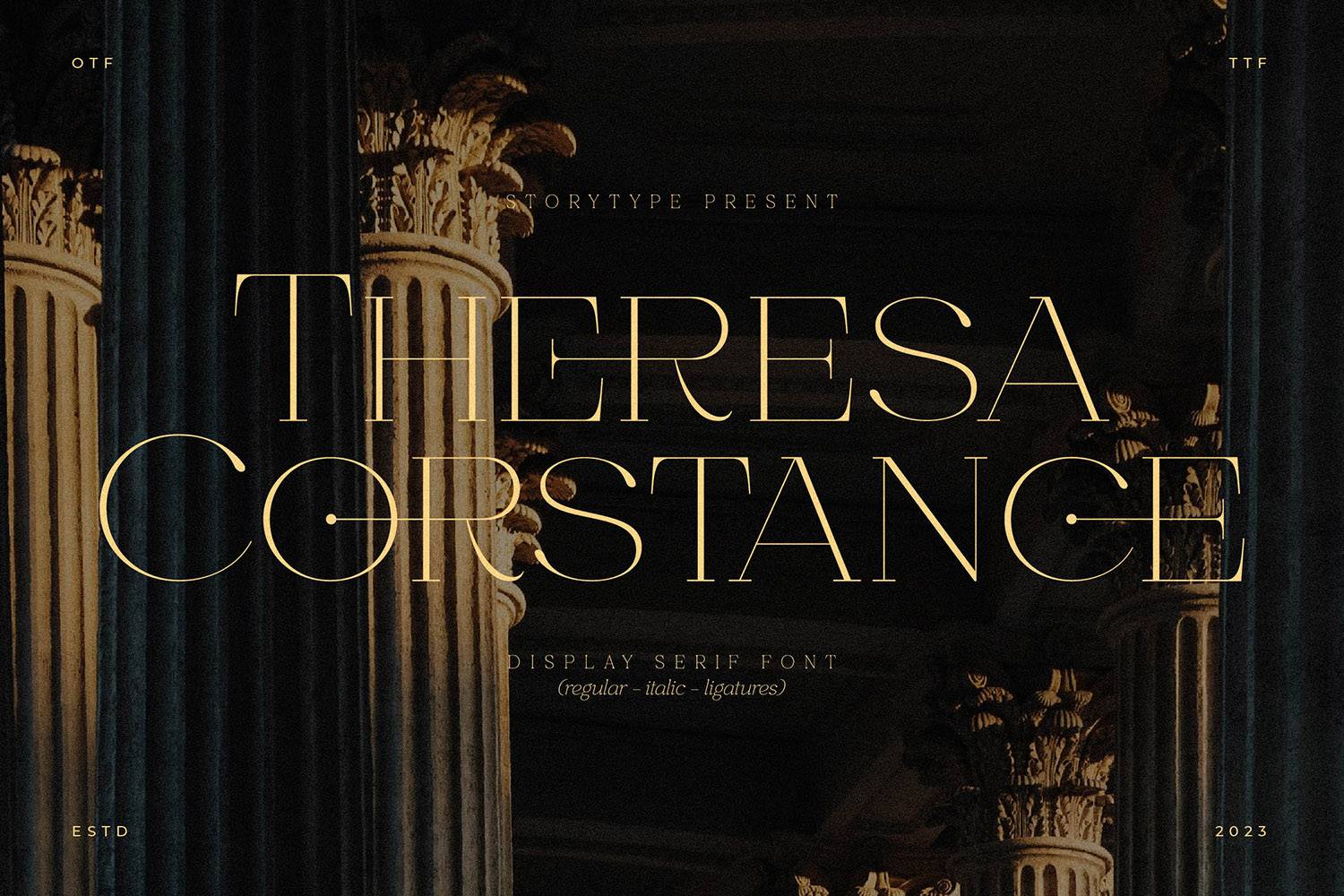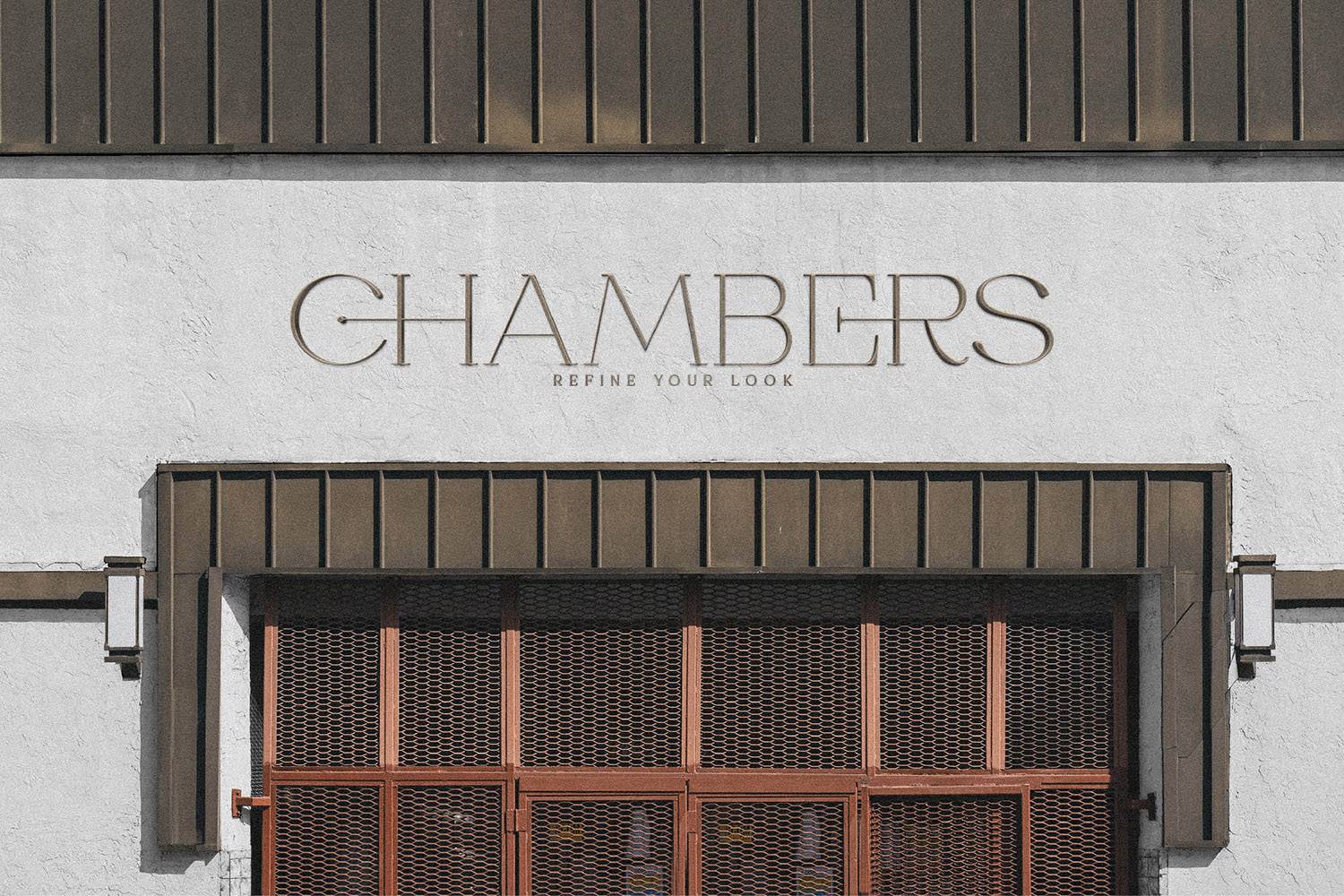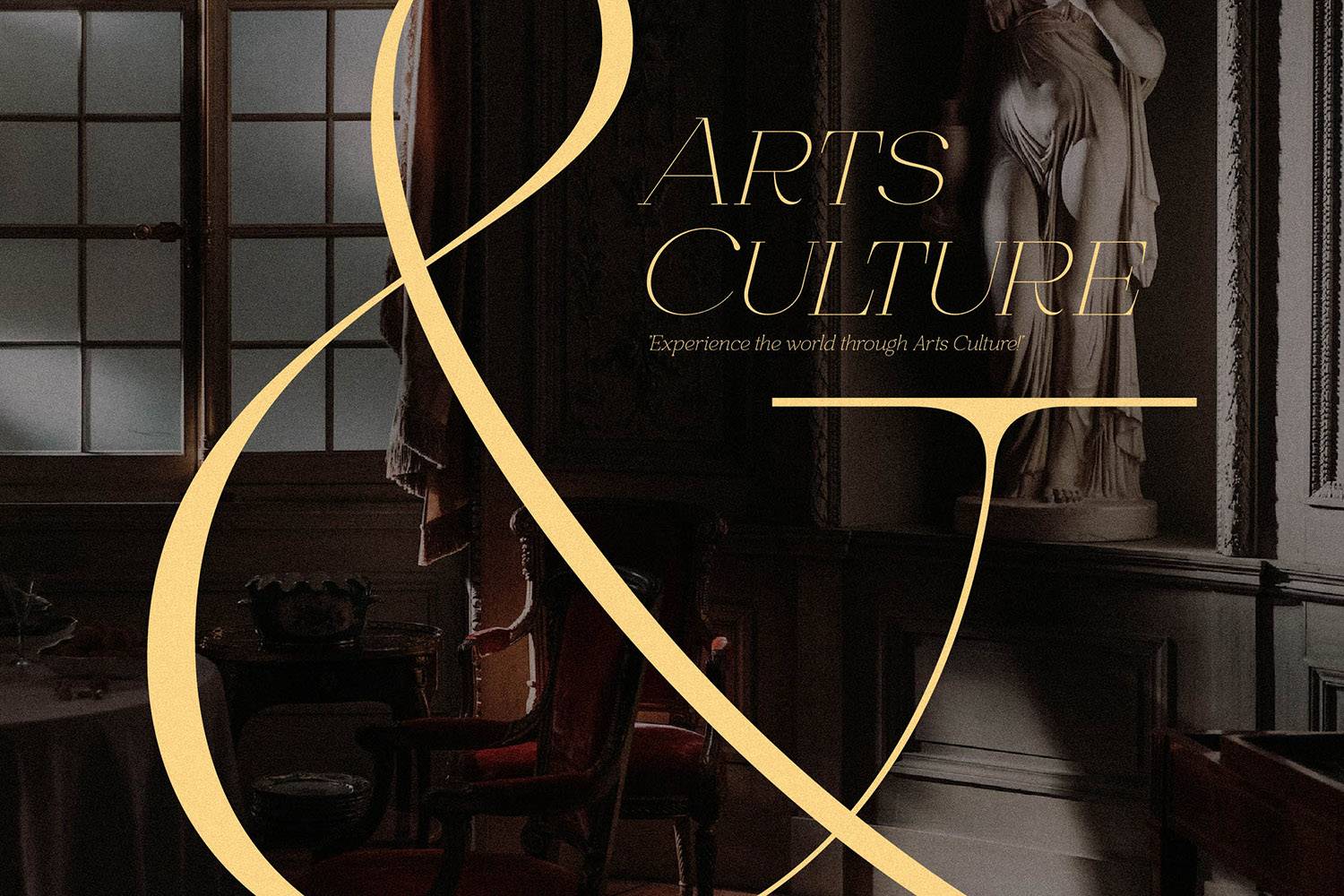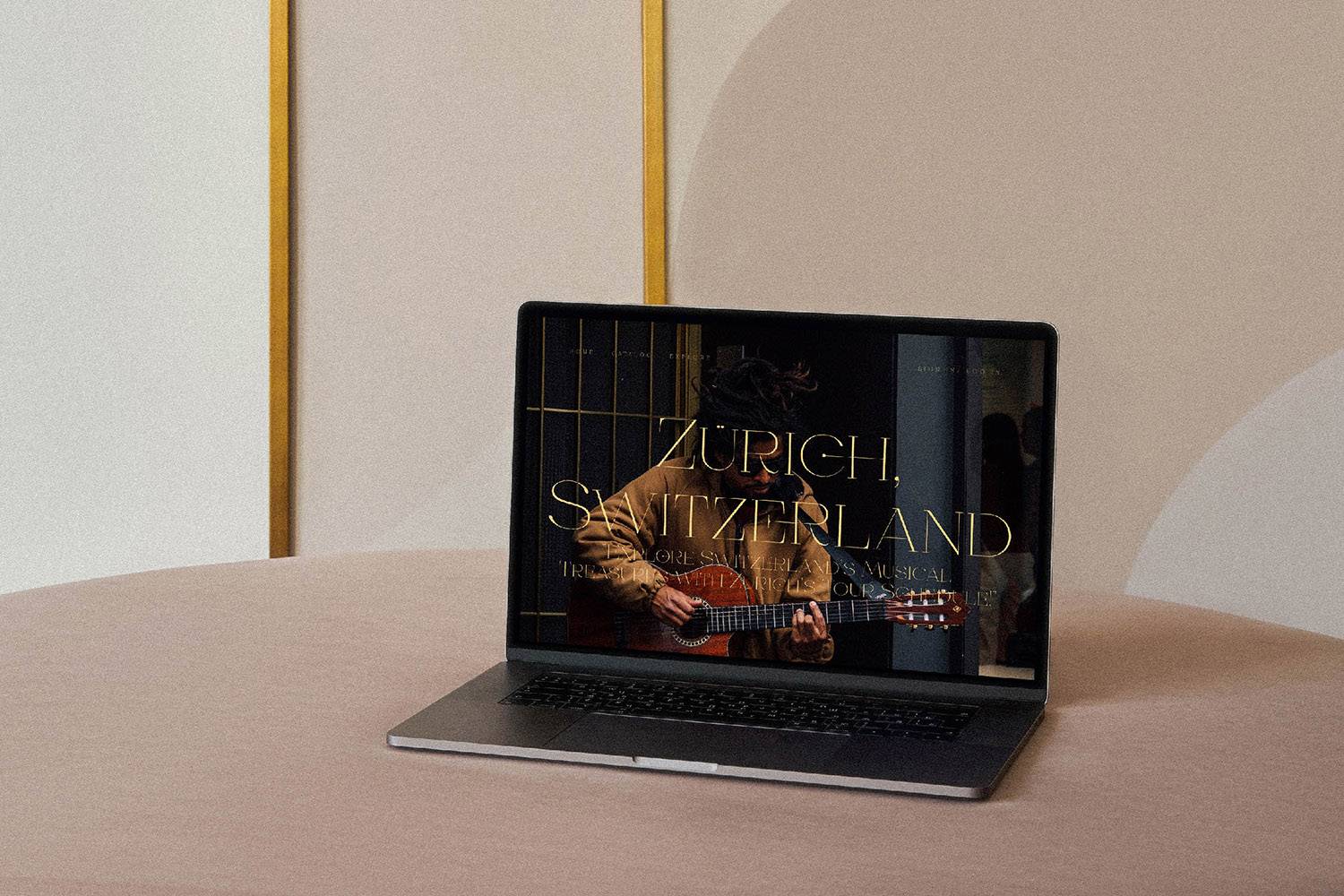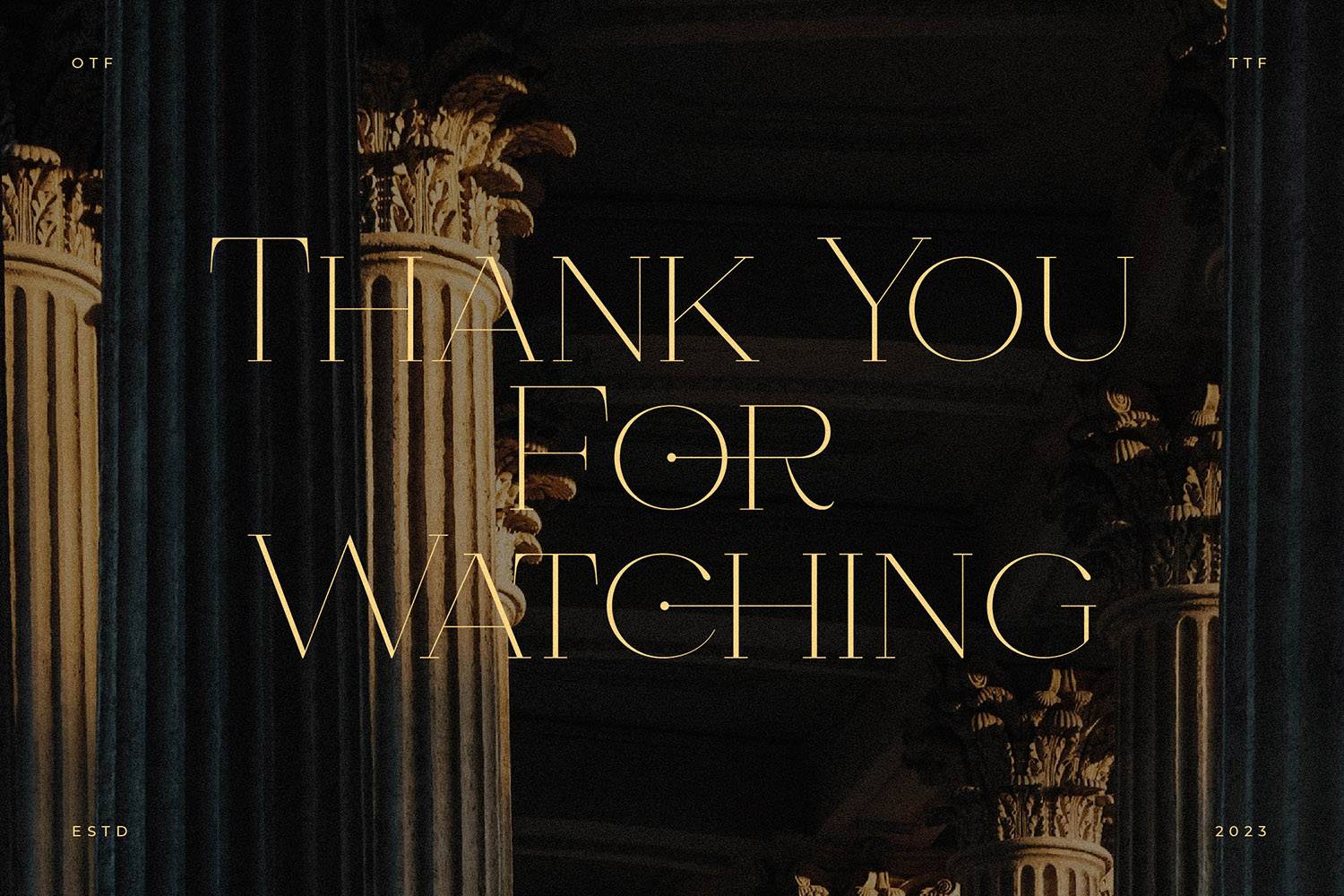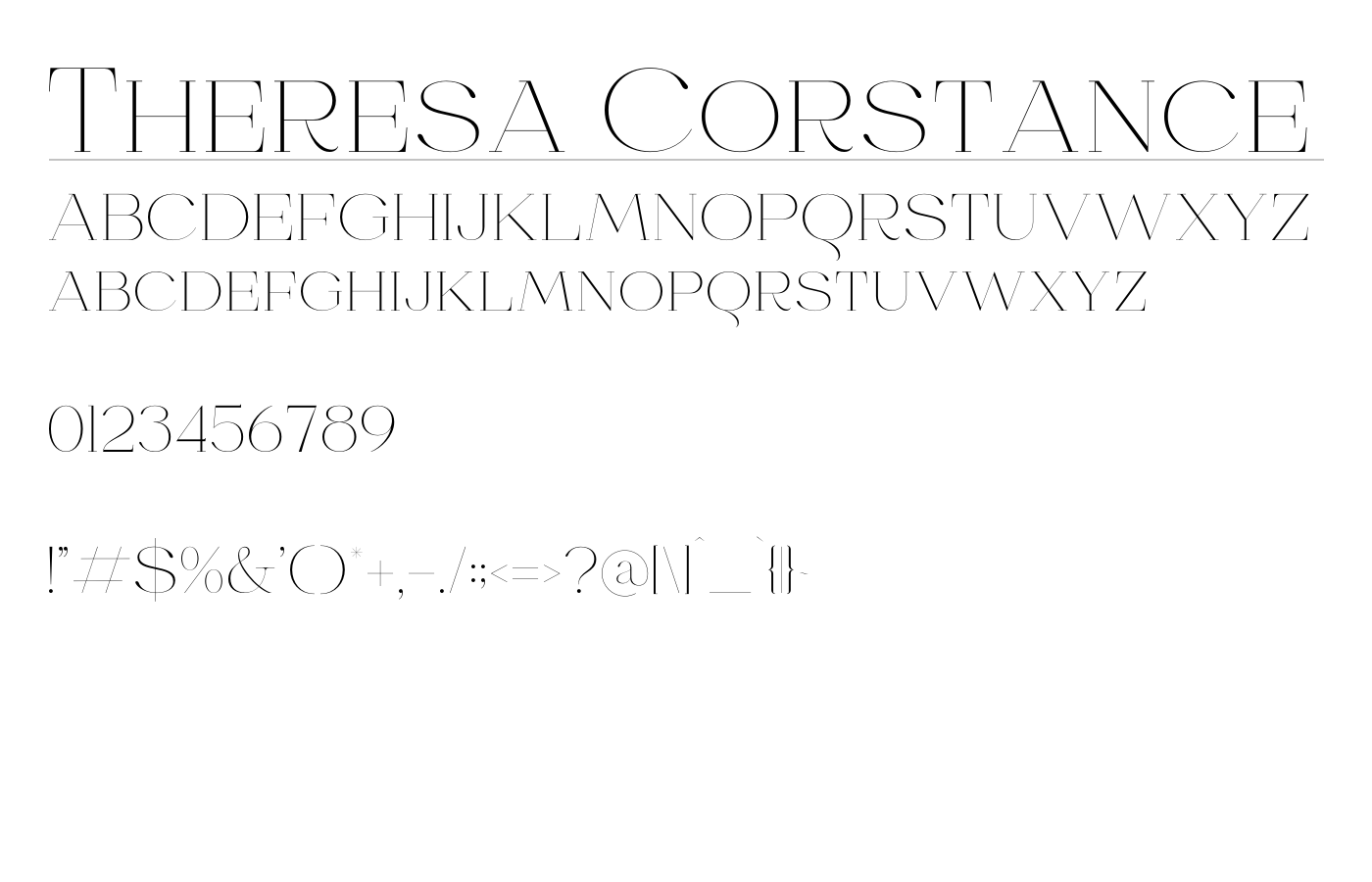
Theresa Corstance is an elegant, ultra-thin serif font with a modern Didone influence, characterized by high contrast between hairline strokes and thicker verticals. Its tall, condensed letterforms and delicate serifs create a refined and sophisticated feel, ideal for luxury branding, fashion editorials, and stylish headlines where a touch of grace and exclusivity is desired. This font shines in upscale contexts that demand both a timeless and contemporary aesthetic.
Theresa Corstance Font
About Theresa Corstance Font